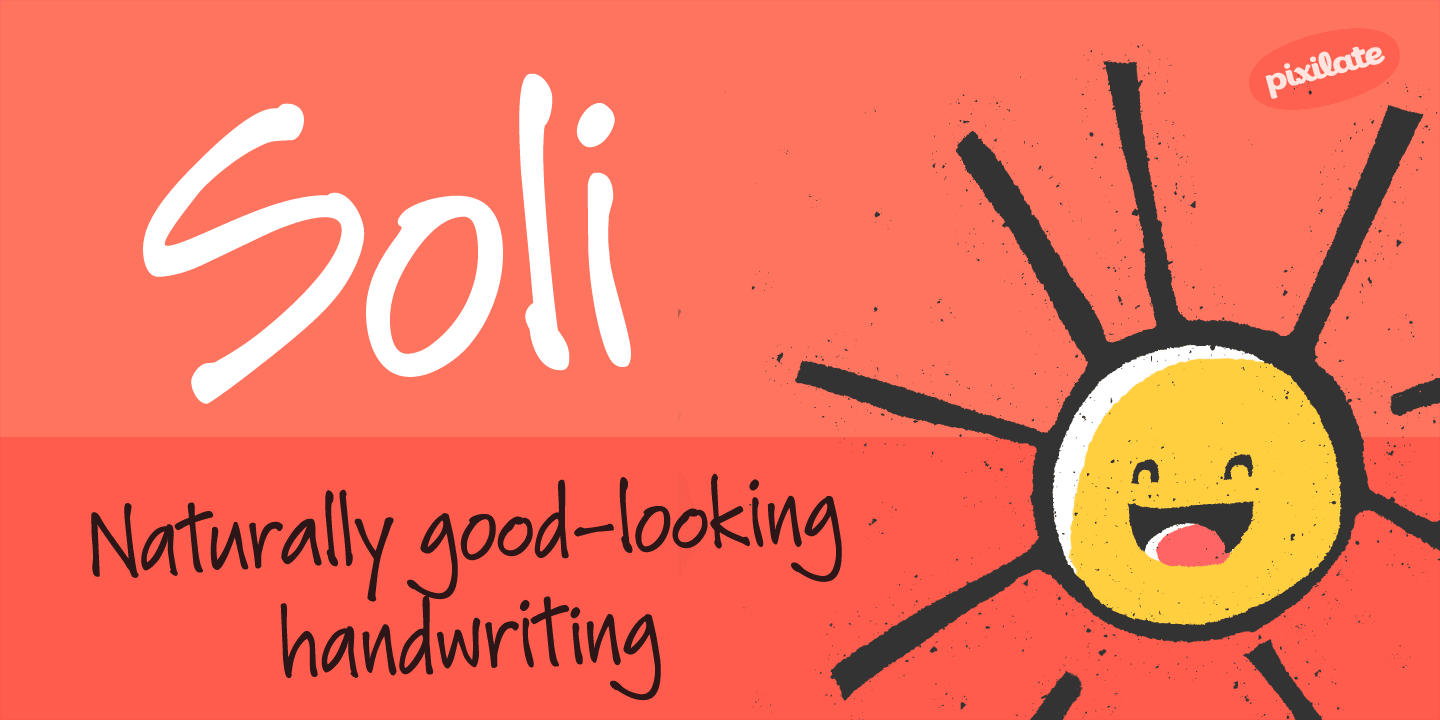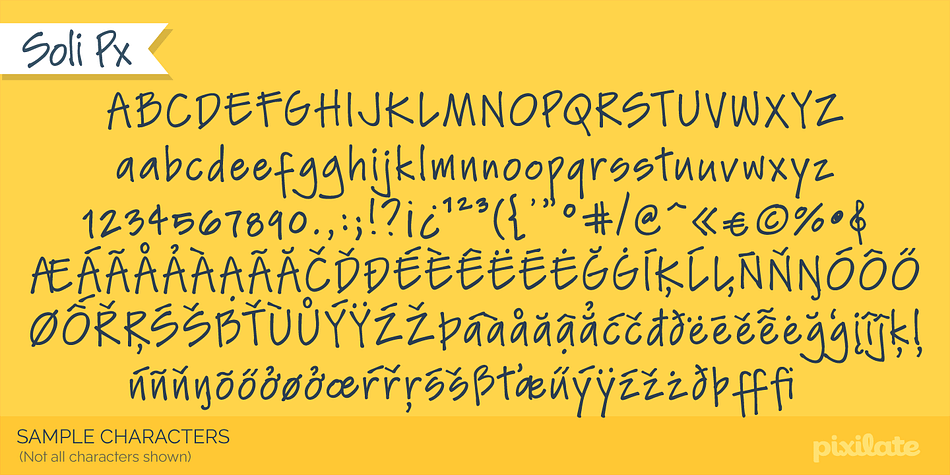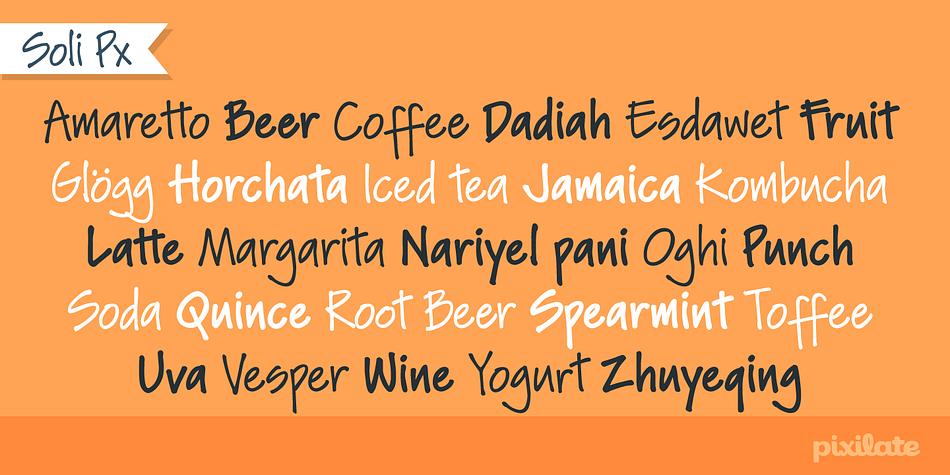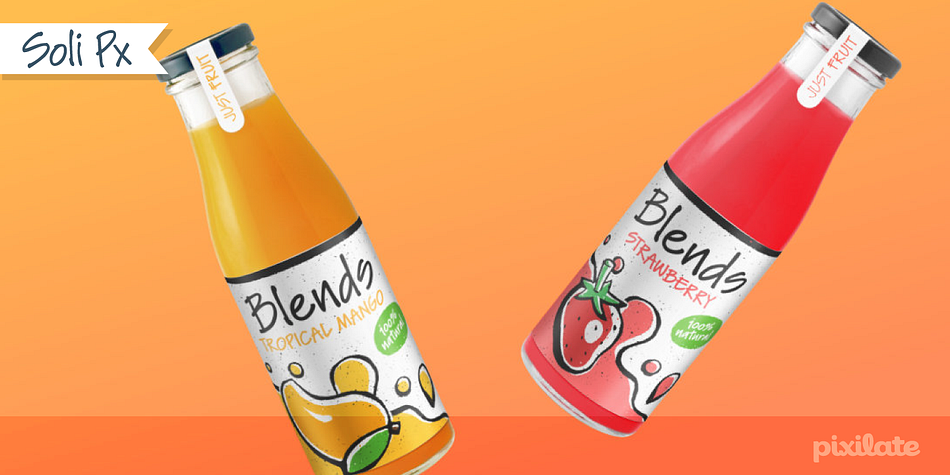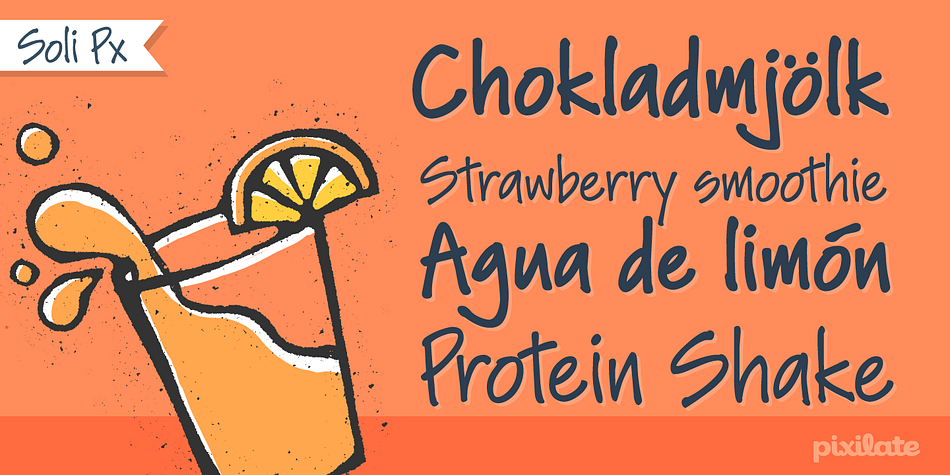
Soli Px
Soli Px is a hand drawn font family. This typeface has two styles and was published by Pixilate.
This is as a legible, friendly handwriting font, great for scrapbooking or journaling and with a wide language support.